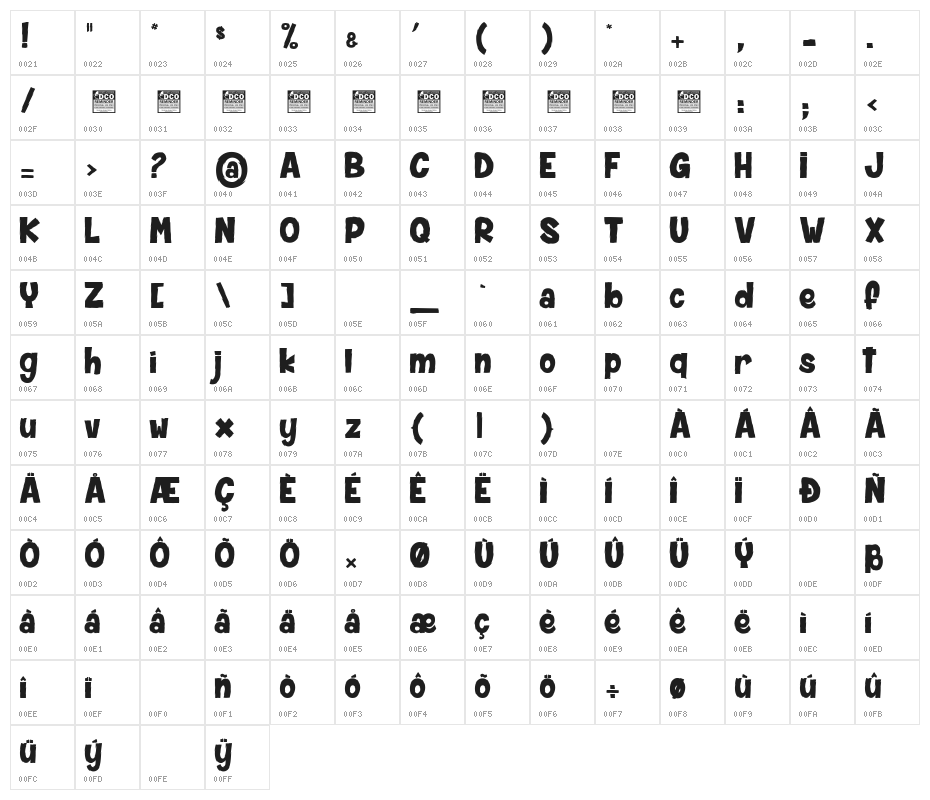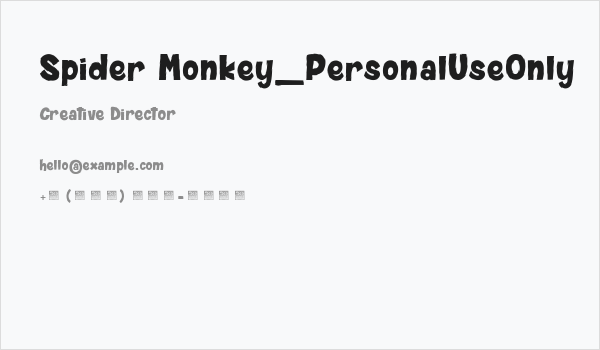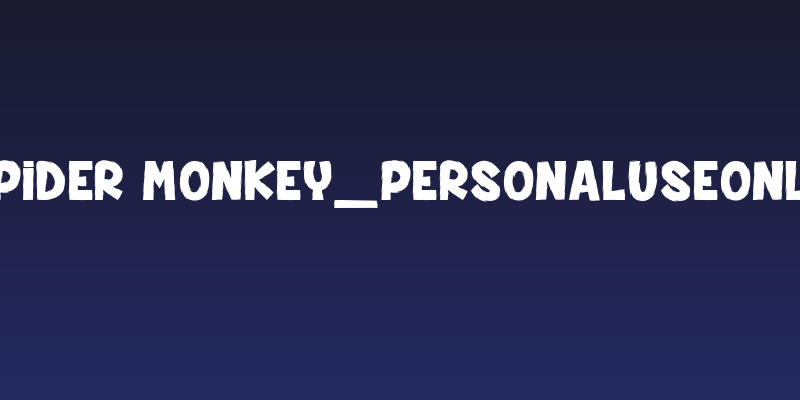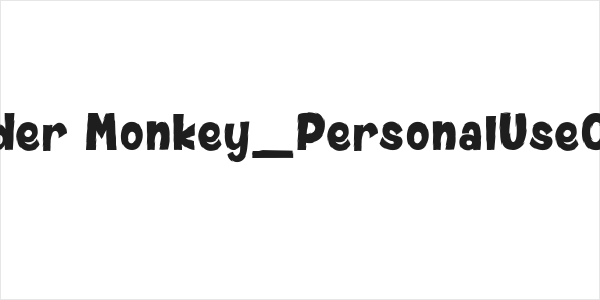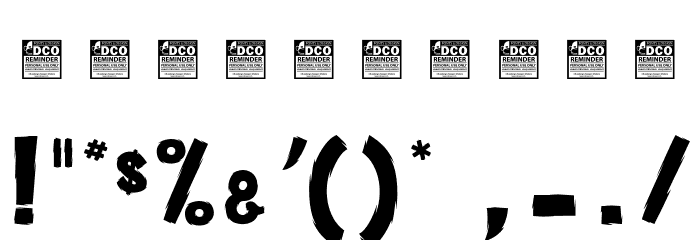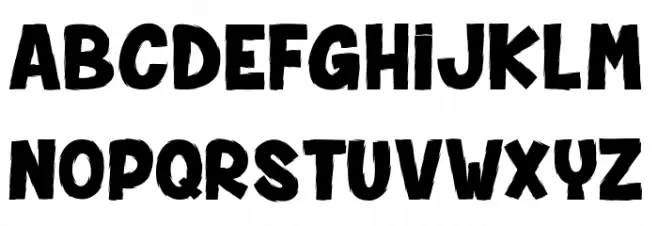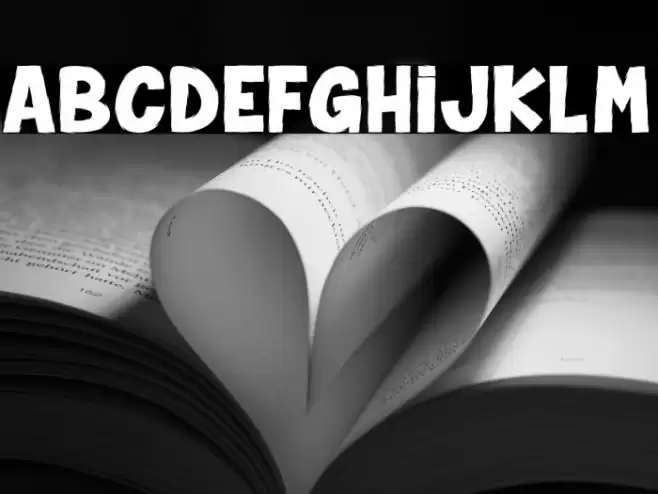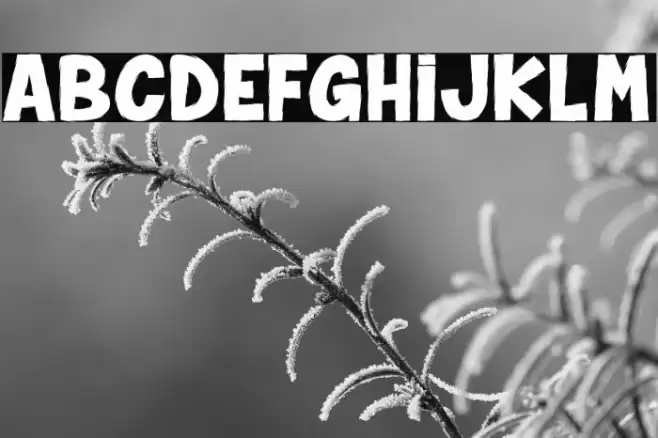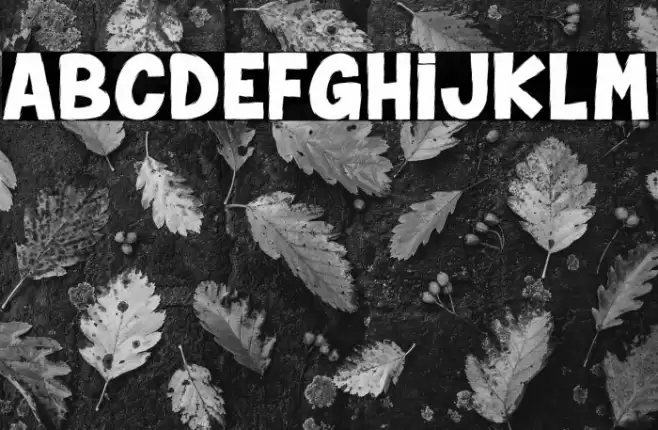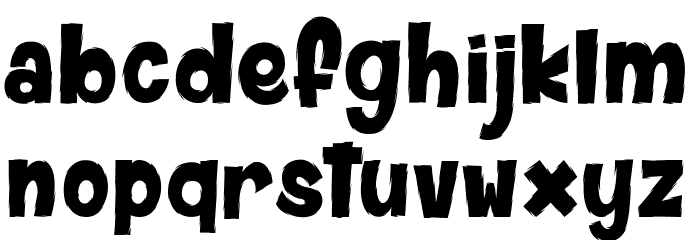
Spider Monkey_PersonalUseOnly Font
| Gesamtstil | Playful, Hand-drawn |
| Anwendungsfall | Headlines, Posters, Branding |
| Vorgeschlagene Projekte | Great for children's books, posters, comic strips, and playful branding. |